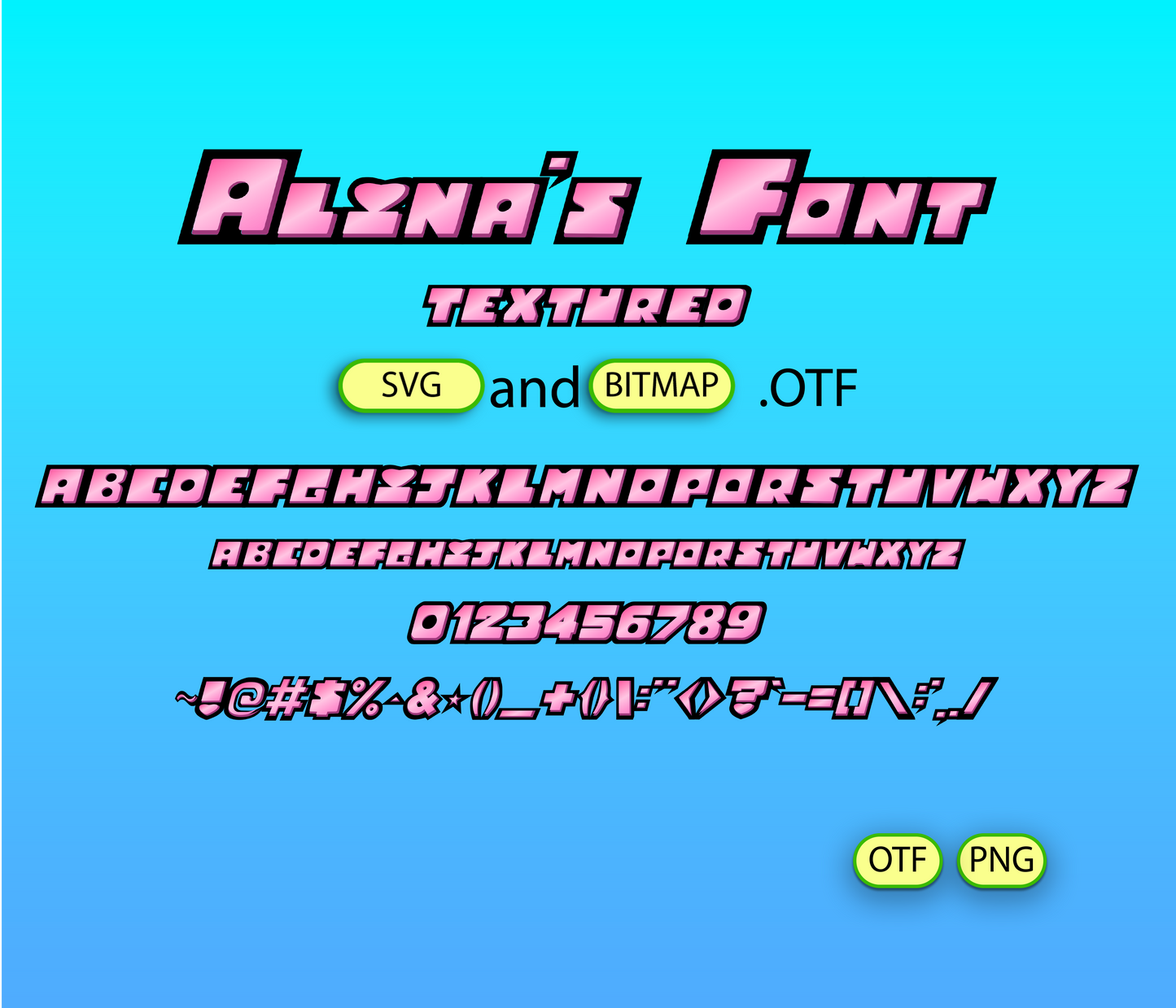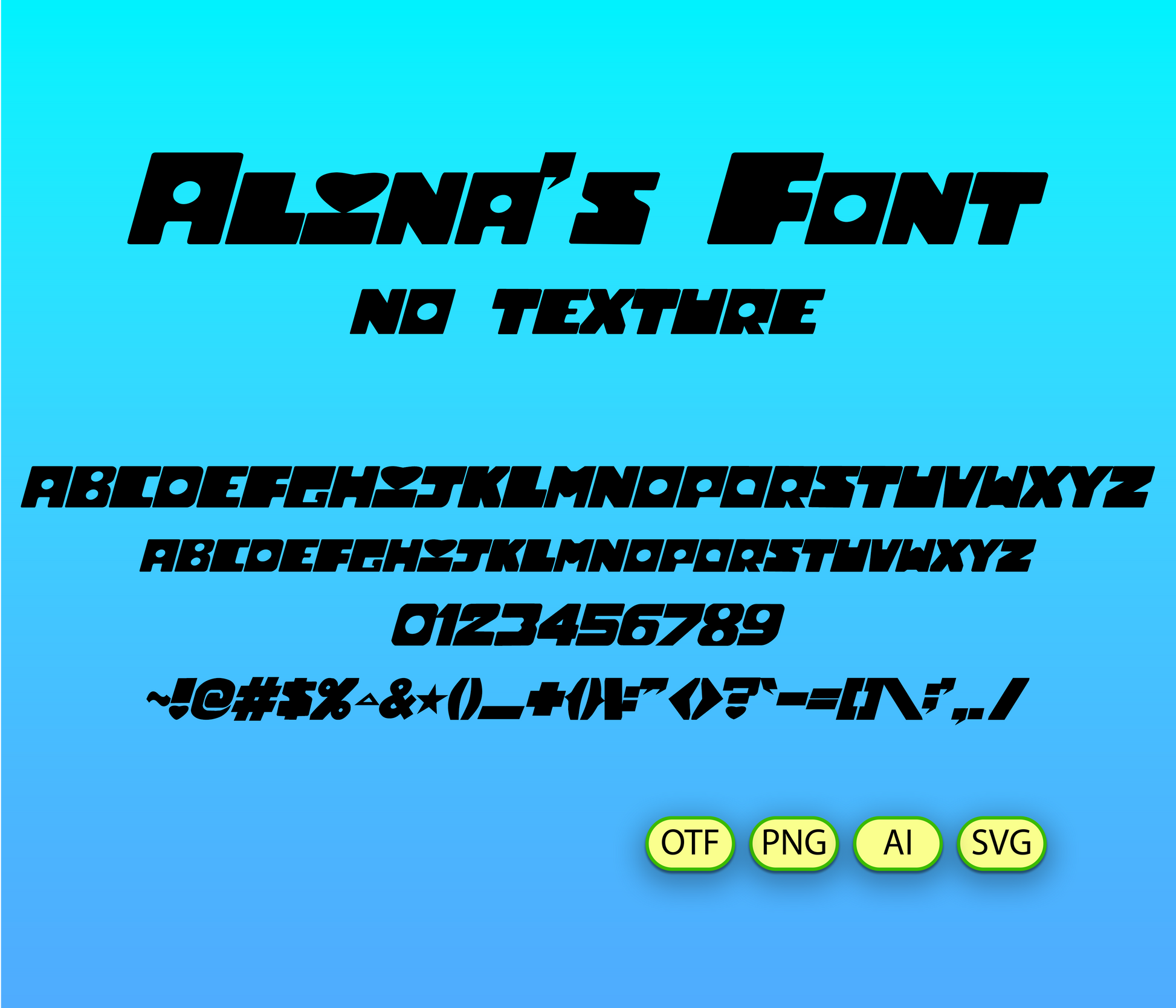
Super Girl Squad Retro Font Textured
Super Girl Squad Retro Hero Style
Blast off into the action-packed world of young superheroines and colorful crime-fighting with our Super Girl Squad Retro Hero font, capturing the essence of powerful girl team adventures and vibrant heroic missions. Perfect for superhero comedy creators, girl power designers, retro hero storytellers, and creative professionals, this font delivers the energetically heroic yet playfully colorful, boldly empowering atmosphere of super girl team tales to your projects. Craft heroically vibrant invitations, girl power merchandise, or digital content with the dynamically fierce, colorfully confident energy of super girl squad stories.
Our Super Girl Squad Retro Hero font features bold, comic-inspired letterforms and vibrantly heroic characters reflecting the dynamically empowering yet playful aesthetic of super girl team scenarios. Ideal for: